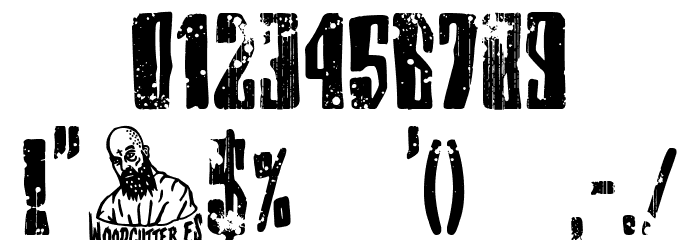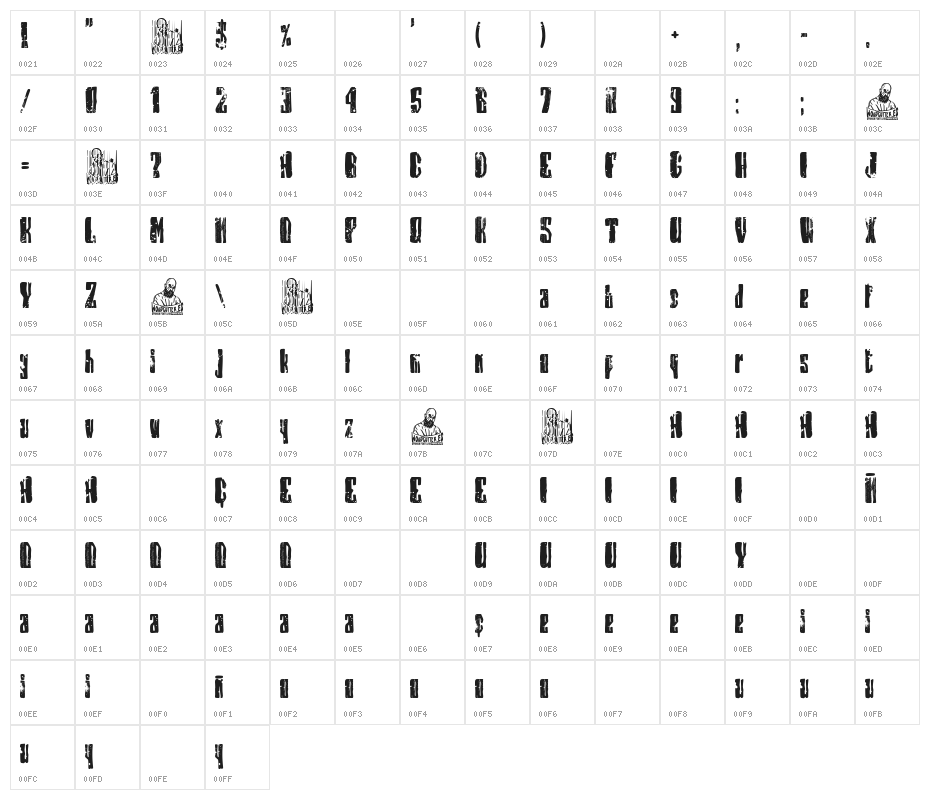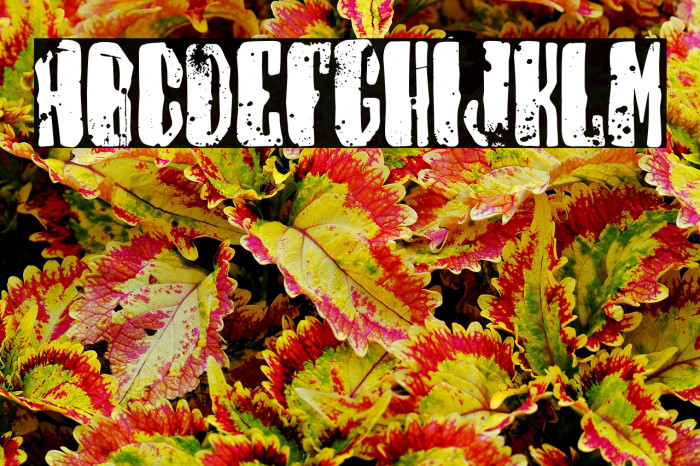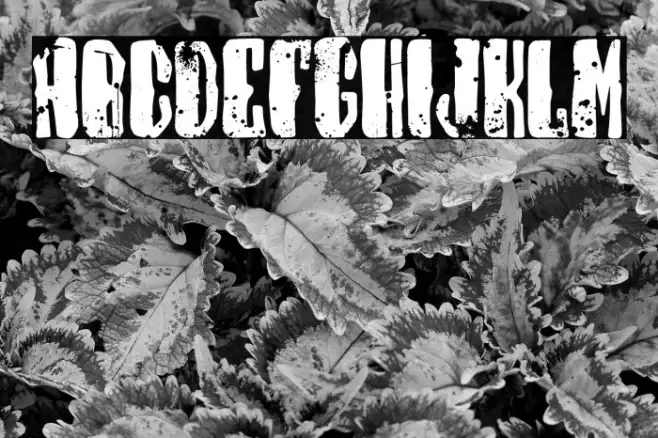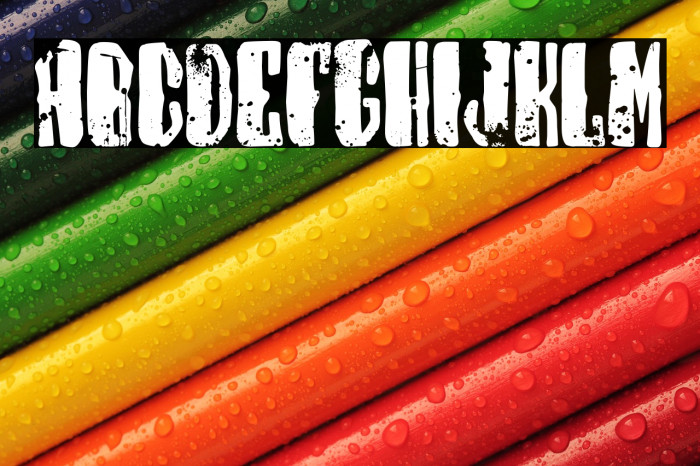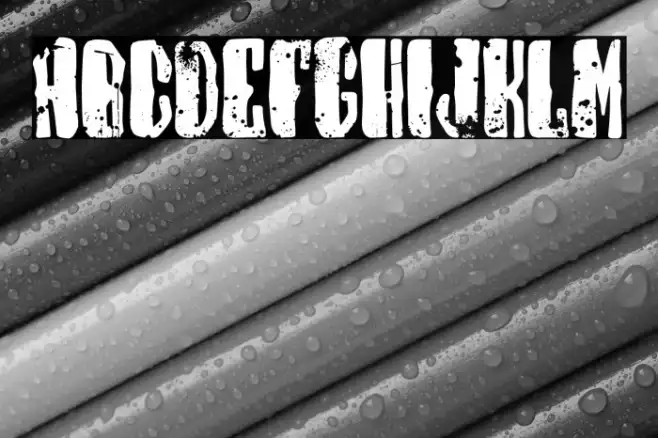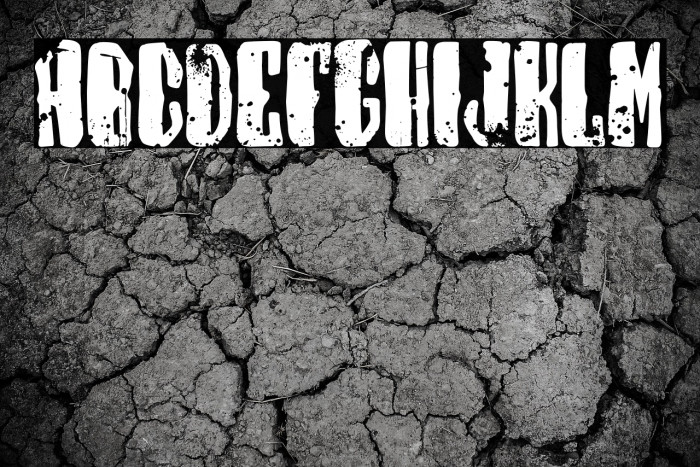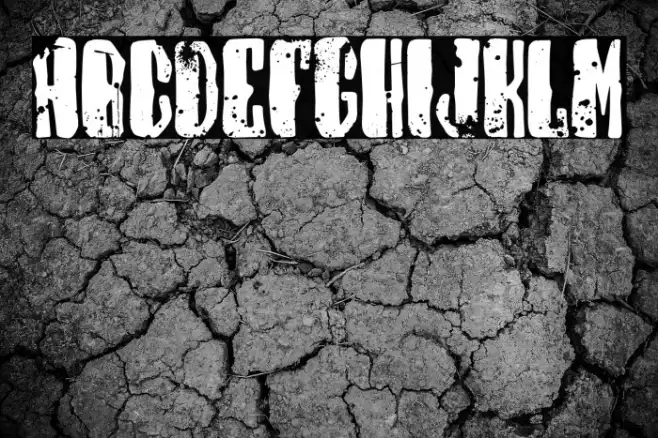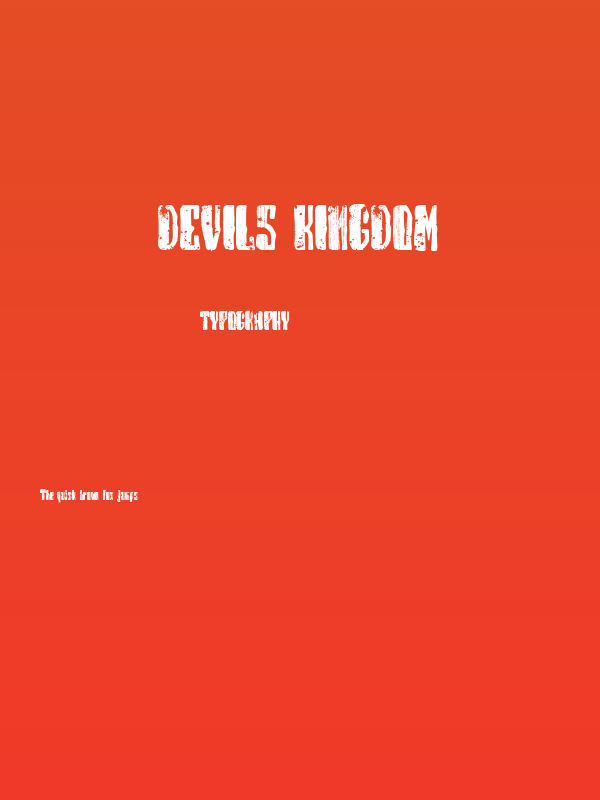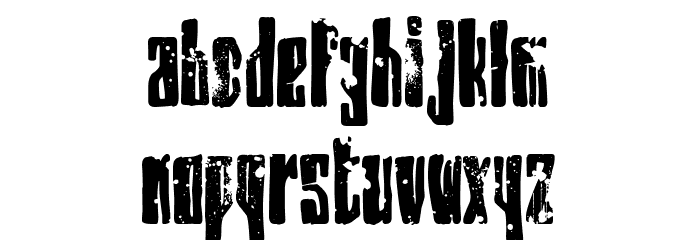
Devils Kingdom Font
Devils Kingdom Description
This font exudes a rugged and distressed aesthetic, characterized by its bold and heavily textured appearance. Each letter appears as if it has been weathered or eroded, giving it a gritty and raw feel. The uppercase and lowercase letters maintain a consistent style, with irregular edges and a sense of chaos that adds to its unique charm. The numbers and special characters follow the same distressed theme, ensuring a cohesive look across all elements. This font is perfect for projects that aim to convey a sense of rebellion, edginess, or a vintage rock and roll vibe.
| Overall Style | Vintage, Edgy, Distressed |
| Use Case | Logos, Posters, Album Covers |
| Proposed Projects | Ideal for music album covers, poster designs, branding for edgy products, or any project needing a gritty, rebellious touch. |